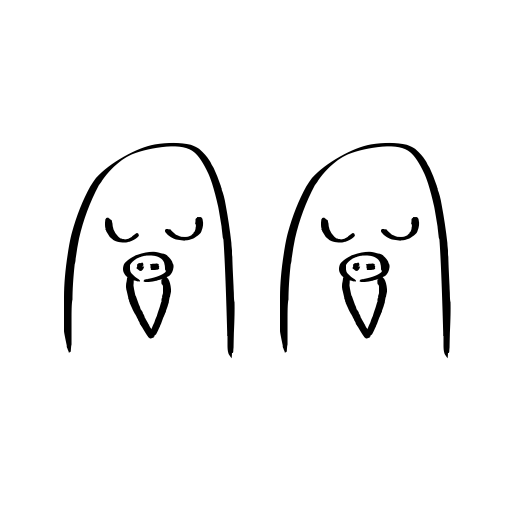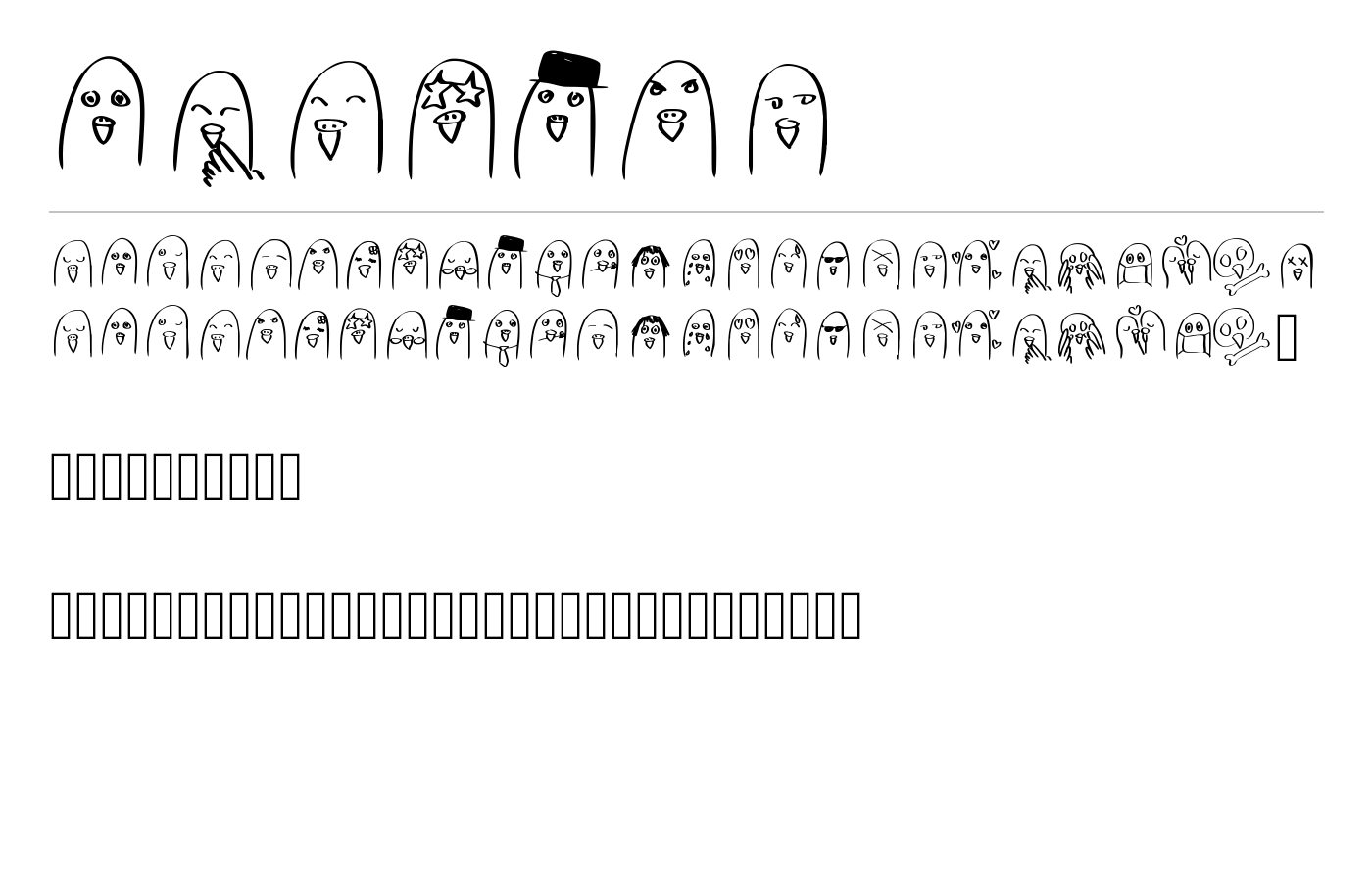
Budgies Font is a playful and quirky decorative typeface featuring hand-drawn bird characters with various expressive faces and accessories. Its whimsical style and informal lines make it perfect for fun, lighthearted designs such as children's books, greeting cards, or casual branding, where a unique and charming personality is desired. This font adds a warm and friendly touch, making any project feel approachable and delightfully creative.
Budgies Font
About Budgies Font